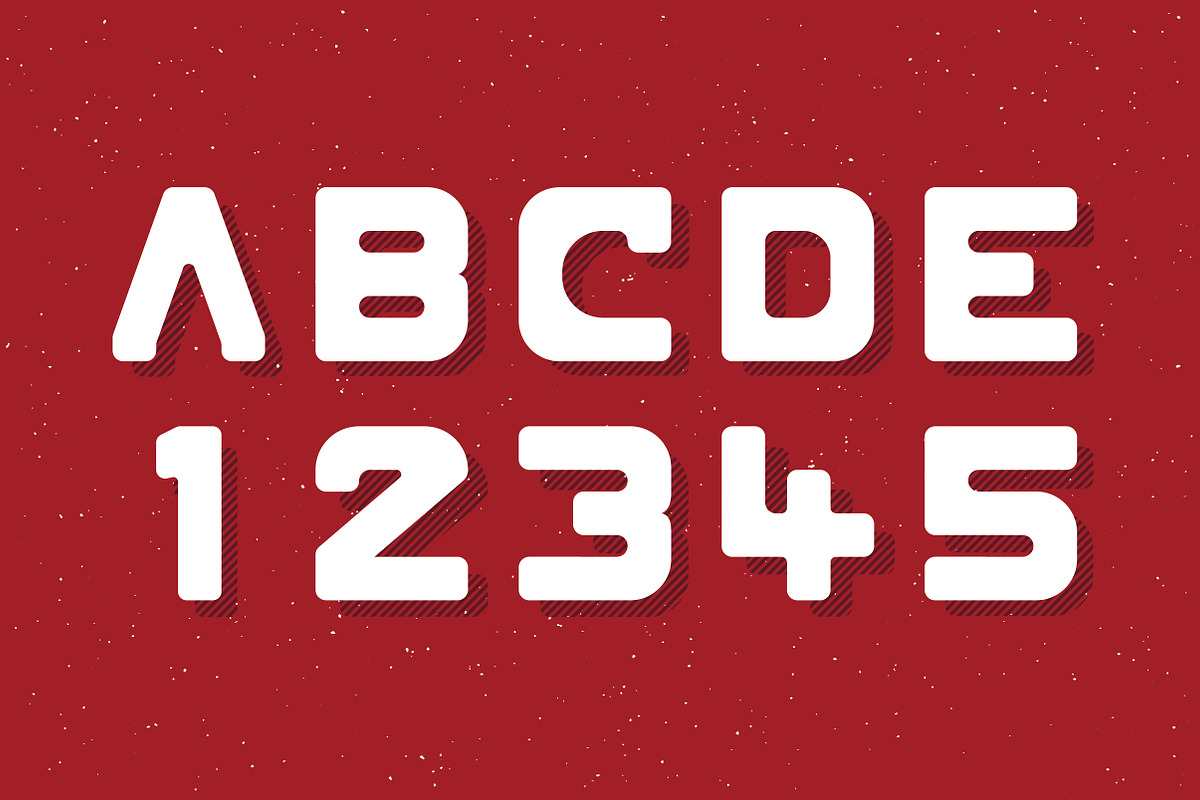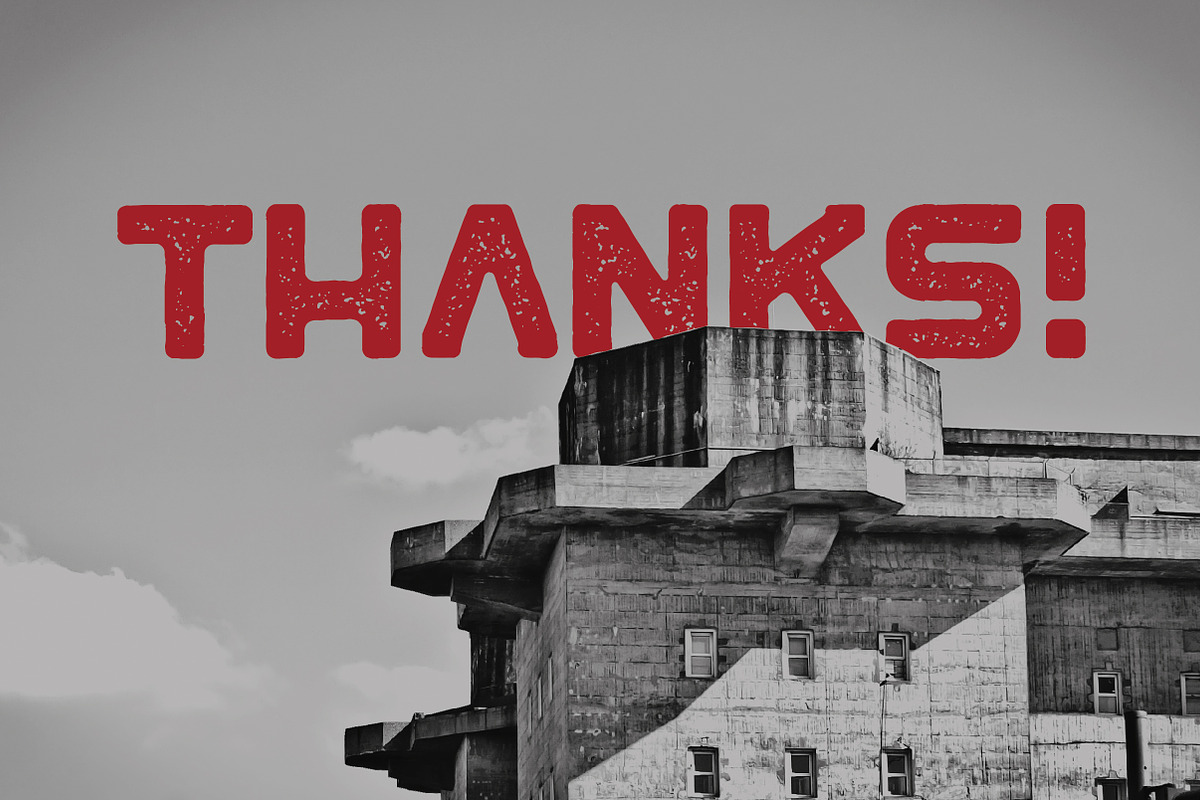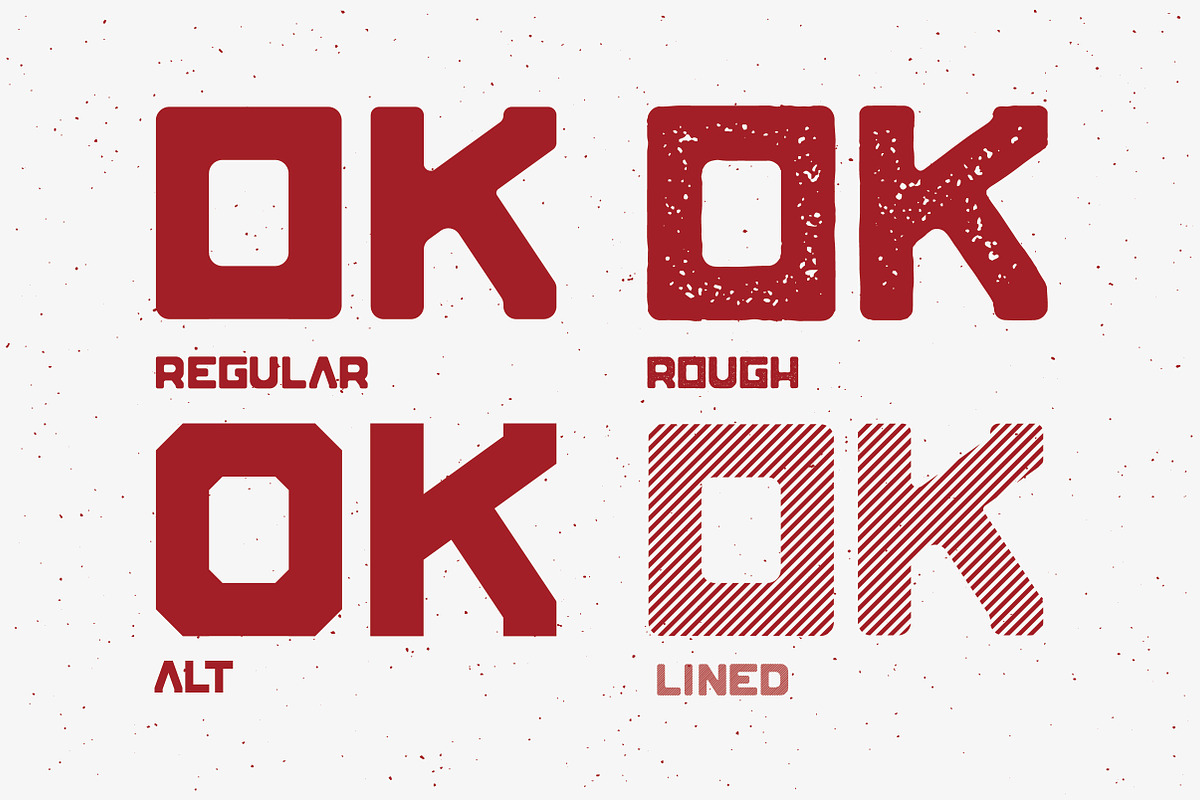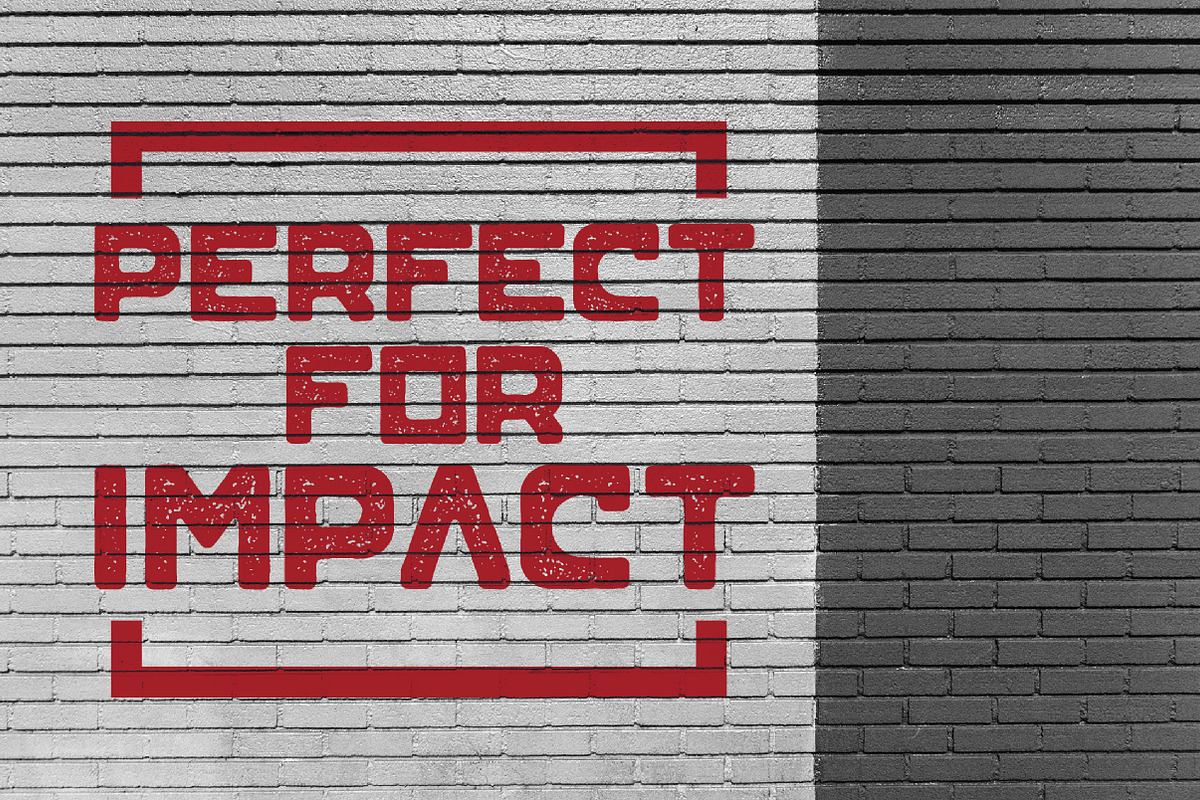
Blok Typeface
Blok Typeface by MikeHill is a font selected for branding, posters, packaging, typography.
- Introducing the new all caps Blok typeface, comes with regular, rough, lined and alt otf.
- Blok Regular
- Blok Rough
- Blok Alt
- Blok Lined
Blok Typeface by MikeHill fits naturally into Branding, posters, packaging, typography.